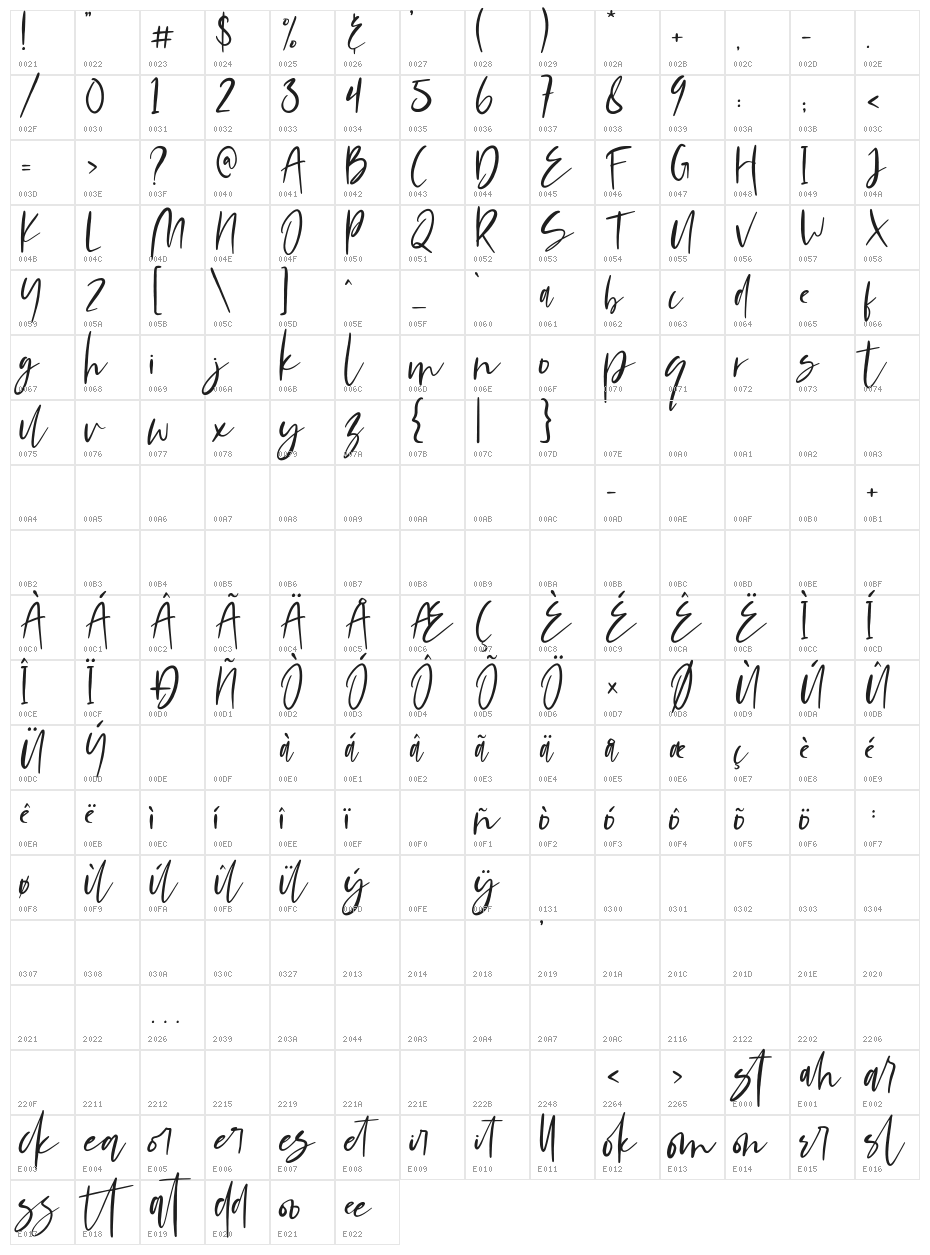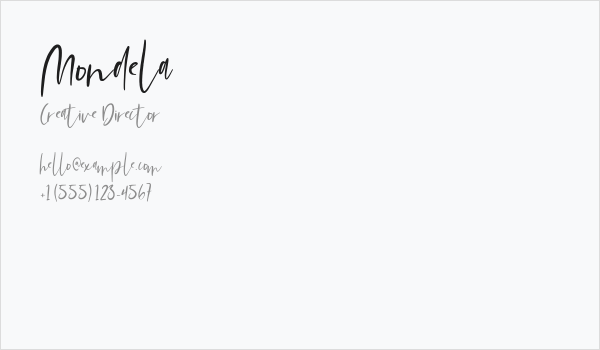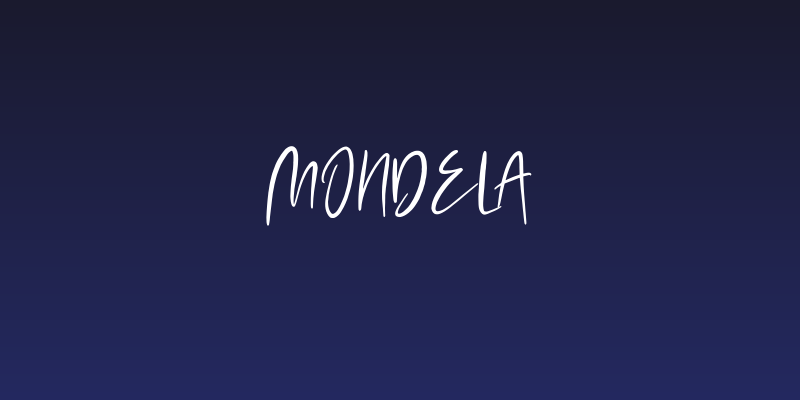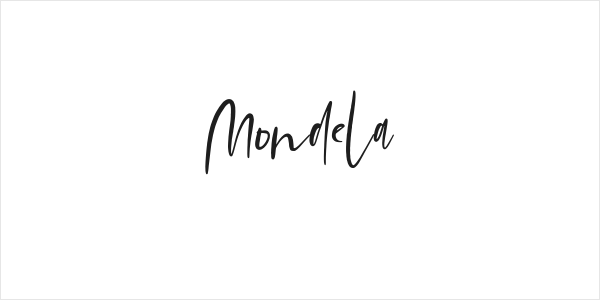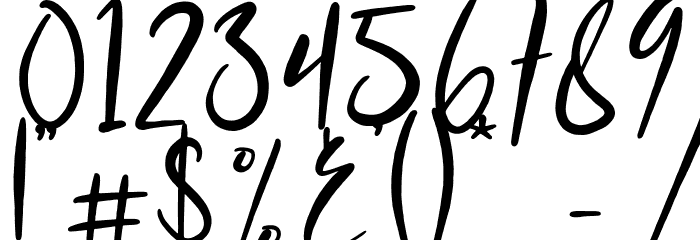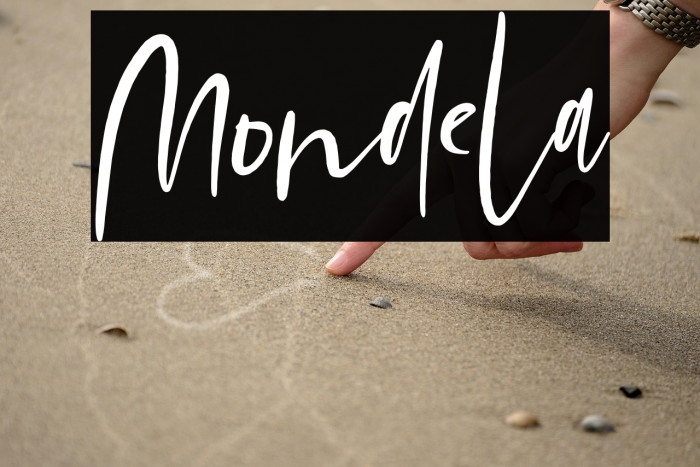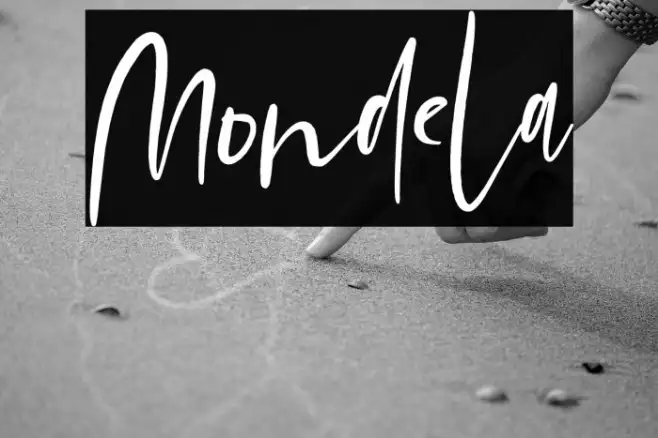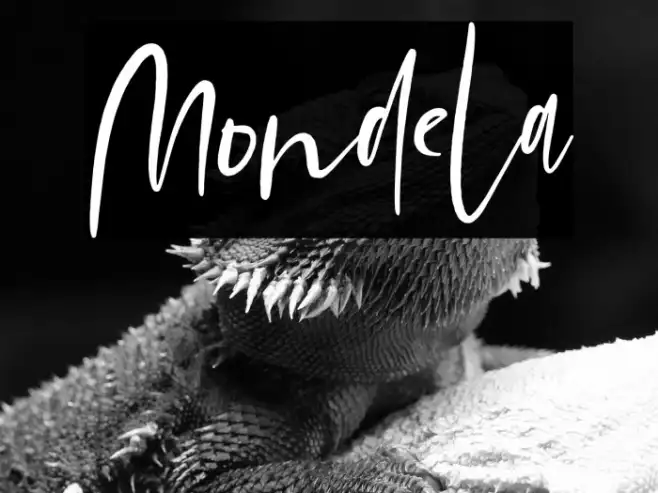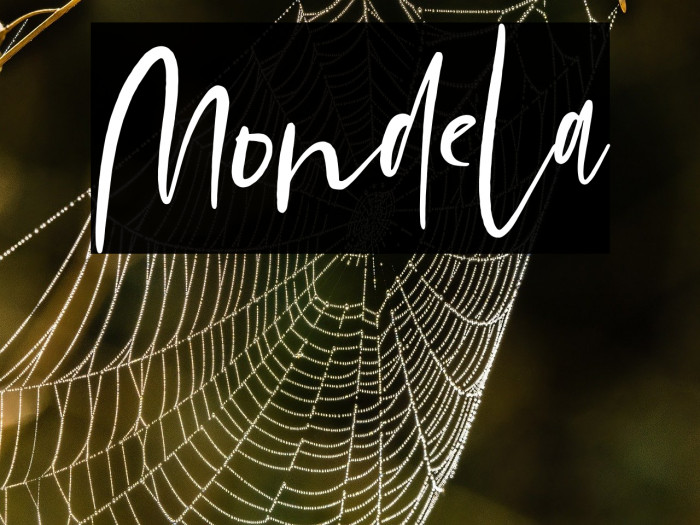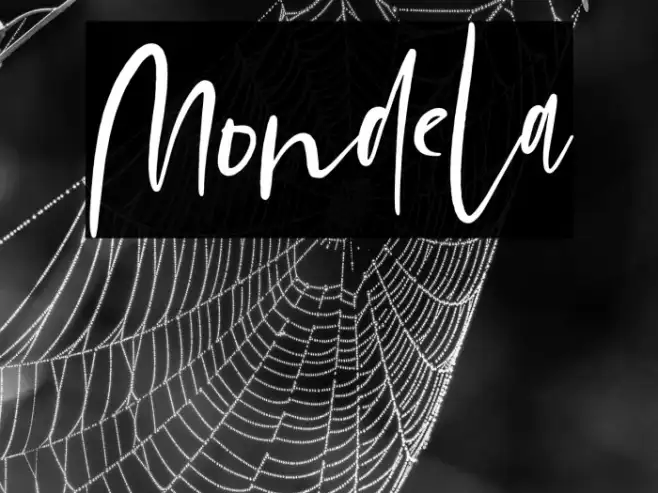
Mondela Font
Mondela Description
This font features a dynamic and energetic handwritten style, characterized by its fluid and expressive strokes. The letters are slightly slanted, giving a sense of motion and spontaneity. The uppercase and lowercase letters maintain a consistent style, with elongated ascenders and descenders that add to its artistic flair. The numerals and special characters are crafted with the same lively touch, ensuring a cohesive look across all characters. This font is perfect for projects that require a personal and informal touch, such as invitations, greeting cards, or creative branding.
| Proposed Projects | Ideal for invitations, greeting cards, creative branding, and personal projects. |